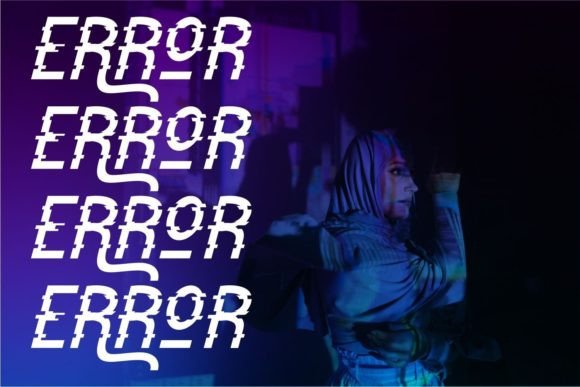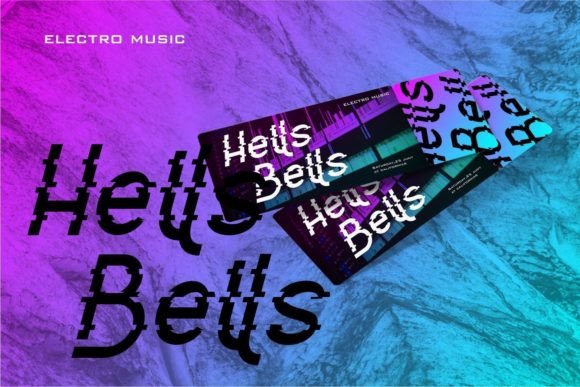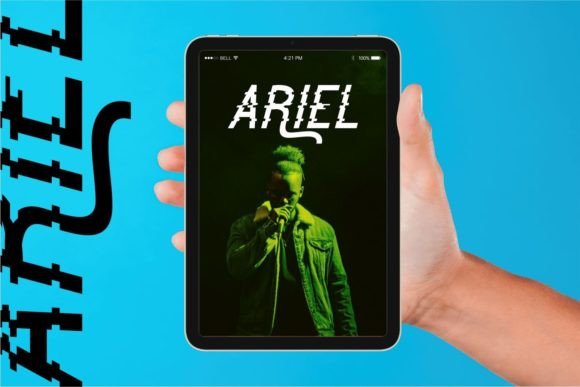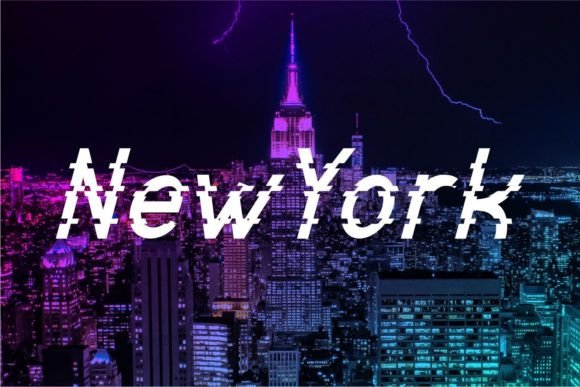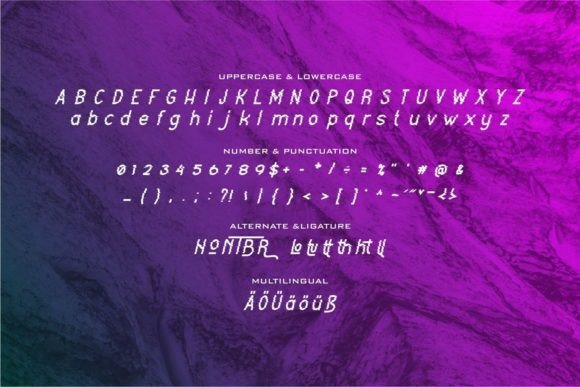
The Glitch Effect that Captivates: Unleashing the Power of Bothan Font
Have you ever been working on a design project and suddenly, an idea strikes you like a bolt of lightning? Maybe it’s a concept for a futuristic game, a mesmerizing music flyer, or an otherworldly movie poster. Whatever the spark, it’s moments like these that make being a designer so thrilling. And what if you could amplify that excitement with a font that’s as captivating as it is unique?
Enter Bothan Font, a modern, glitch-effect font that’s designed to hypnotize and mesmerize. With its futuristic vibe, this font is perfect for designers looking to add an extra layer of depth to their typography. Whether you’re working on a project that requires a bold, eye-catching font or simply want to add a touch of the unknown to your design, Bothan Font is the perfect tool to unleash your creativity.
Bothan Font Key Features
- Font Family: Bothan is a typeface designed for use in digital and print media, offering a unique blend of futuristic and mystical elements.
- Unique Characteristics: Bothan features a unique, hand-drawn aesthetic with intricate details and flourishes, giving it a distinctive and eye-catching appearance.
Bothan Font Review
First off, I want to say that the Bothan Font has some great qualities that make it a solid choice for designers. ✨ One of the things I like is the unique blend of futuristic and classic elements in the font’s design. It’s a great option for projects that need a bit of an edge without going over the top. ✨ The font also has a wide range of styles and weights, making it easy to customize and adapt to different design needs.
- Unique blend of futuristic and classic elements
- Wide range of styles and weights
- Great for projects that need a bit of an edge
However, I do have a few concerns about the Bothan Font. ⚠️ One of the main issues is that the font can feel a bit too busy or cluttered at times, especially when used in larger text sizes. ⚠️ Additionally, some of the styles and weights may feel a bit inconsistent or mismatched. ⚠️
- Font can feel too busy or cluttered at times
- Inconsistent or mismatched styles and weights
Overall, I would say that the Bothan Font is a solid choice for designers who are looking for a unique and customizable font. However, it’s not without its limitations, and designers should be aware of the potential pitfalls before using it in their projects.
For best results, use the Bothan Font in conjunction with bold or italic styles to add emphasis. Experiment with different font sizes and colors to create visual interest.
The Bothan Font is ideal for:
- Galactic-themed designs
- Science fiction-inspired artwork
- Space-age branding and logos